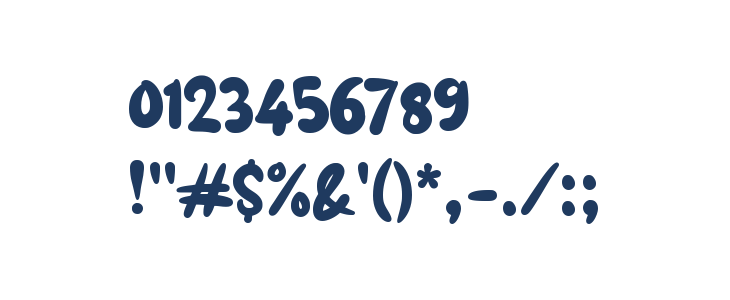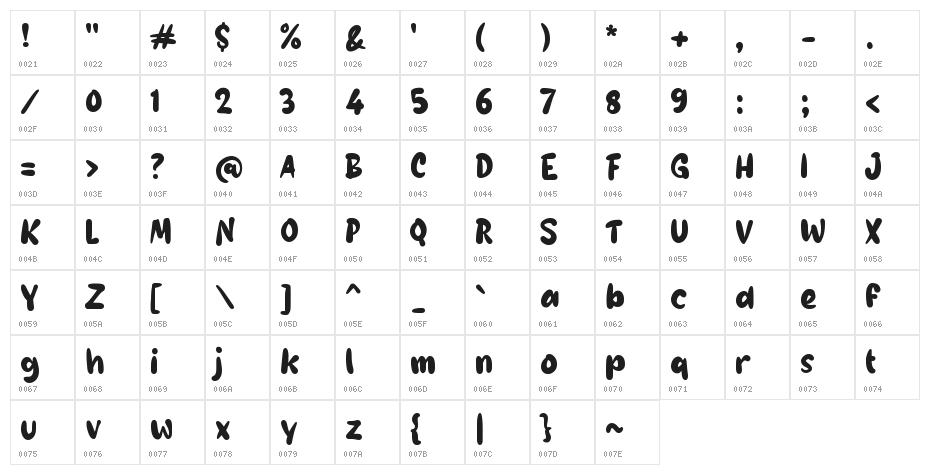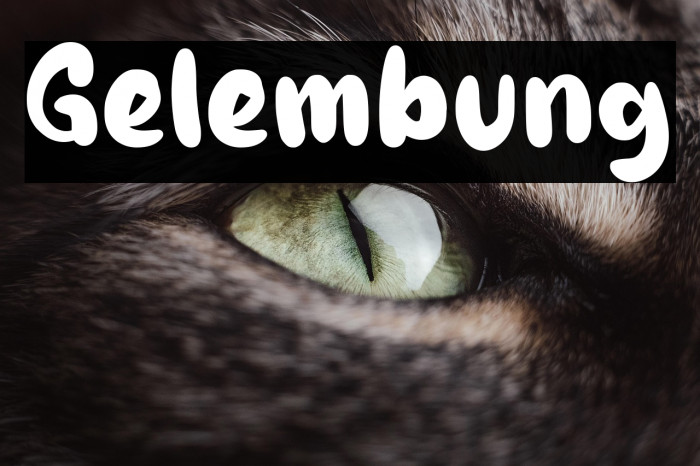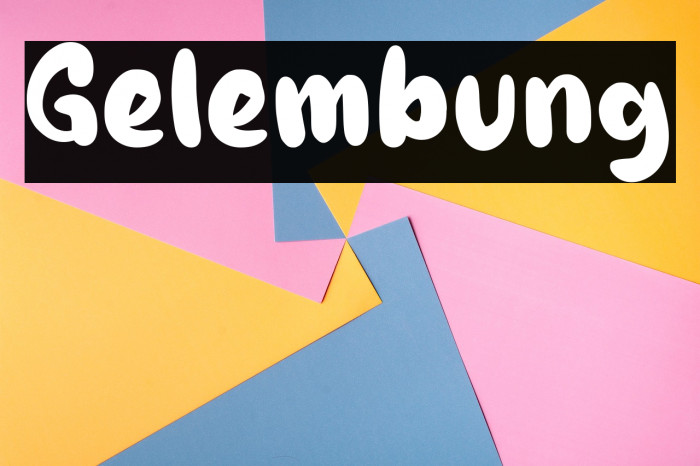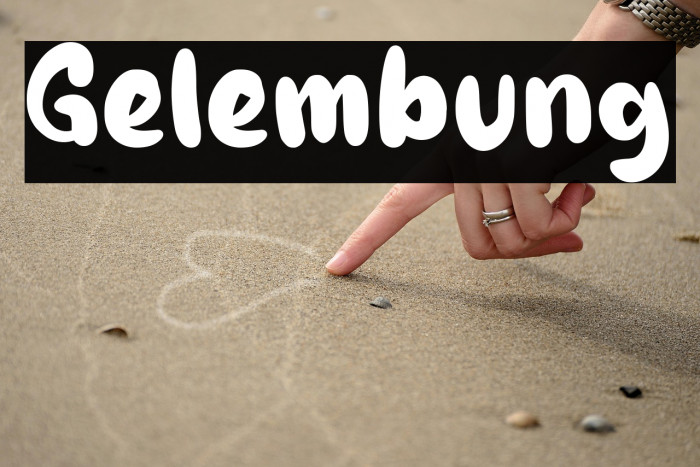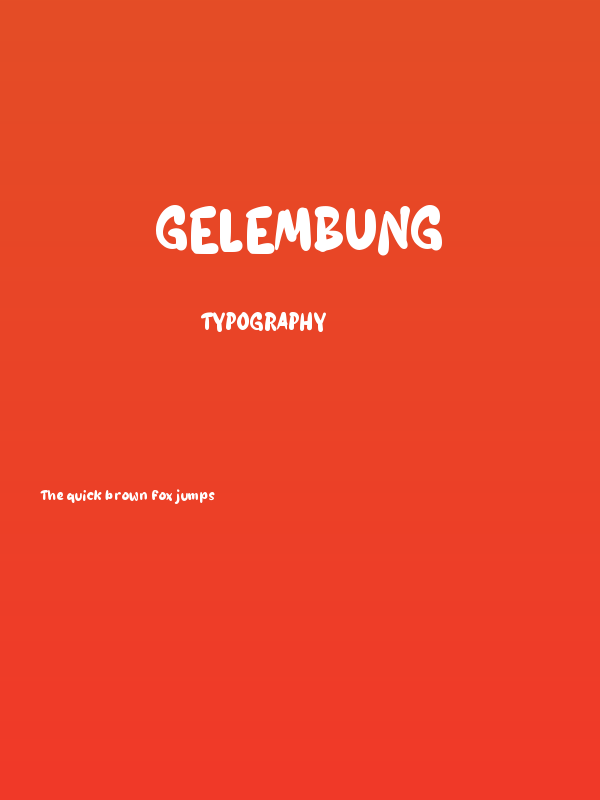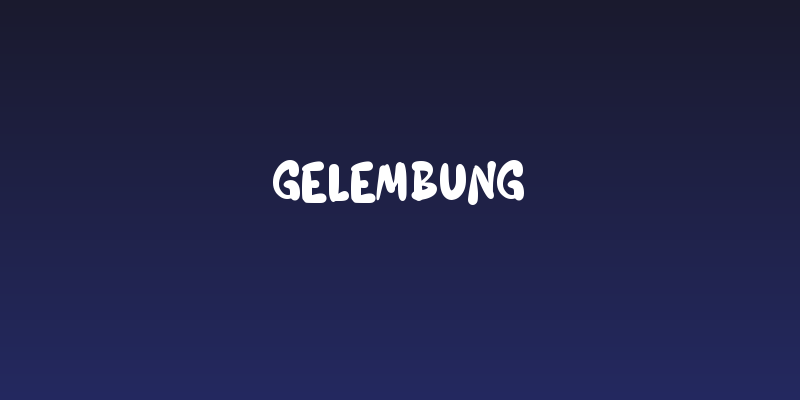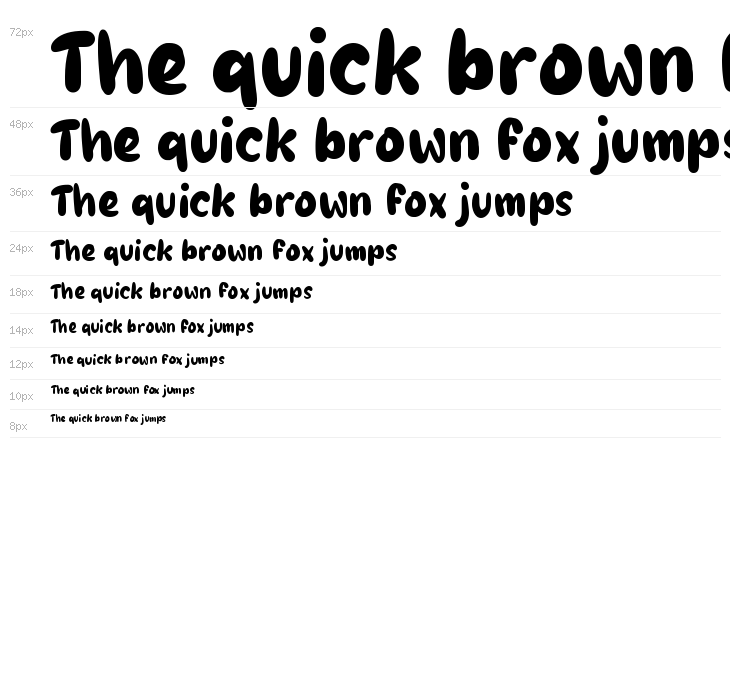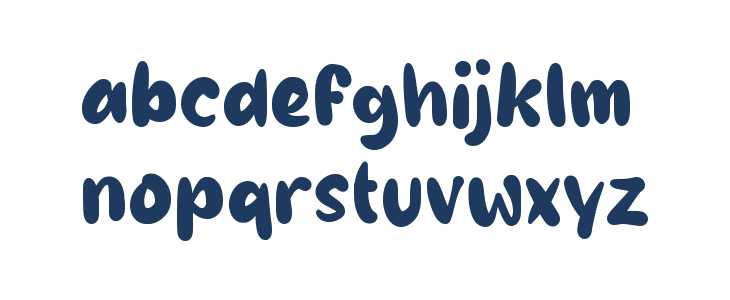
Gelembung Font
Gelembung Description
This playful and bubbly font features rounded, thick strokes that give it a friendly and approachable appearance. The characters are bold and slightly irregular, adding a whimsical touch to the overall design. The font maintains a consistent weight throughout, with a medium contrast between the thick and thin strokes. Its rounded edges and soft curves make it ideal for projects that require a fun and informal vibe. The spacing between characters is normal, ensuring readability while maintaining its playful character.
| Overall Style | Playful |
| Proposed Projects | Ideal for children's books, playful branding, party invitations, and casual social media graphics. |